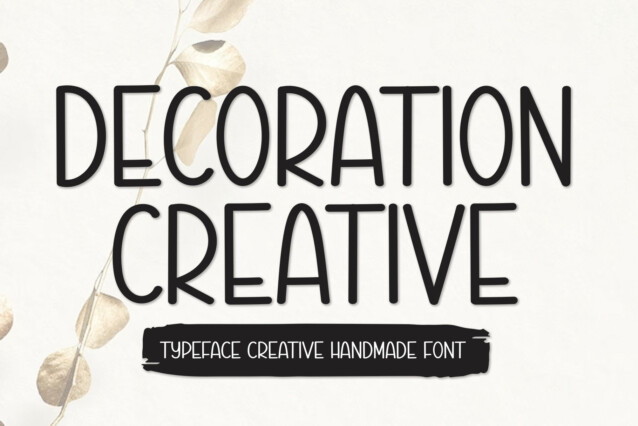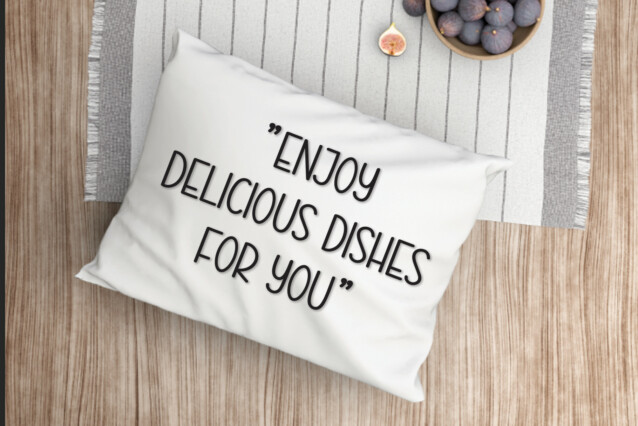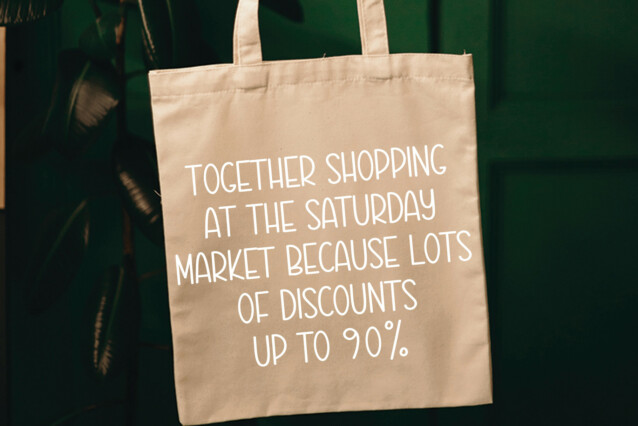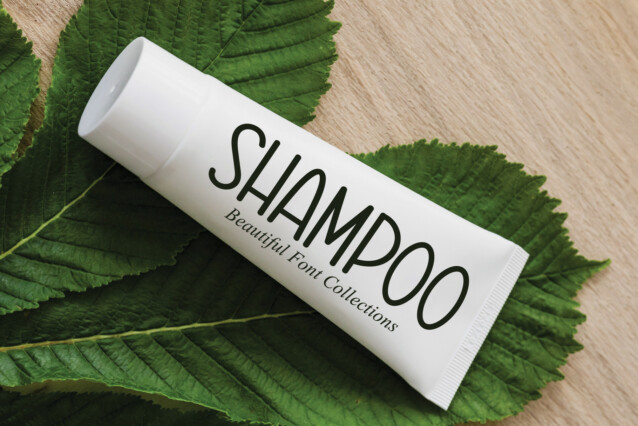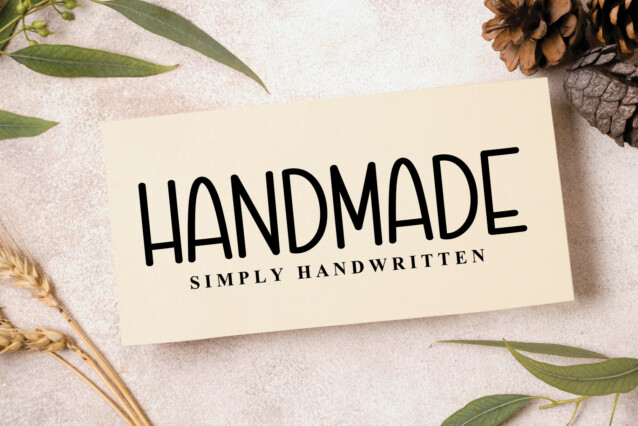
Decoration Creative Display Font
Decoration Creative Display Font is a neat and casual handwritten font. Incredibly versatile, this font will be suitable for a wide spectrum of applications. Add it to each of your creative ideas and notice how it makes them stand out!